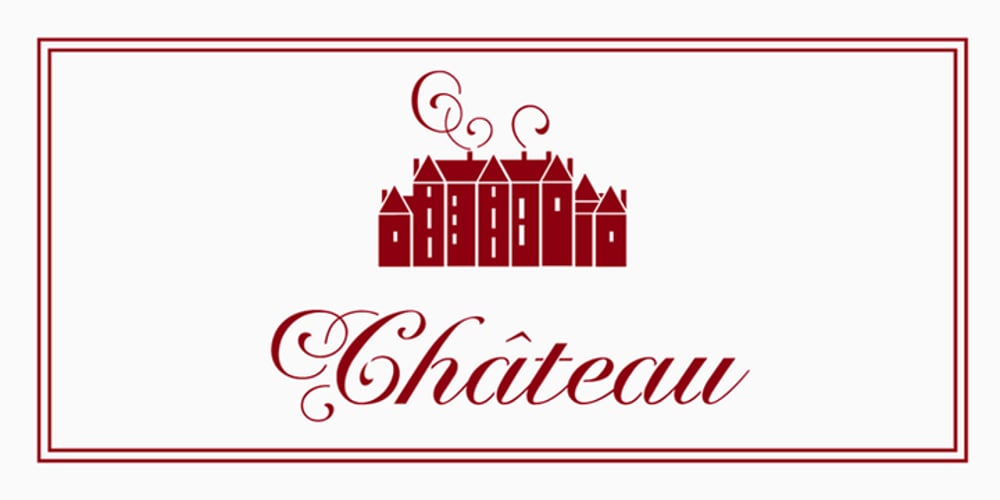
Chateau
Chateau font
Chateau Font Family was designed by Robbie de Villiers and published by Wilton Foundry. Chateau contains 1 styles and family package options. On the one hand Chateau is almost palatial but at the same time it has a quite earthy personality as represented by the stenciled strokes. However, this stencil effect serves to refine the strokes by creating the illusion of a completed thin stroke. Chateau is more of a hybrid roundhand script with its contrasting ornate capitals. Originally a fortified residence in France was called a Chateau. Today there are many estates with true Chateaux on them in Bordeaux, but it is customary for any wine-producing estate, no matter how humble, to prefix its name with “Chateau”. This is true whether the building itself is a magnificent palace or a shack. The distinctive chateau architecture was in inspiration for the name of this script. Chateau is ideal for packaging design, invitations, announcements, headlines, brochures, menus, weddings, scrapbooking, etc. Chateau is available in Opentype, Postscript and Truetype for Macs and PCs.